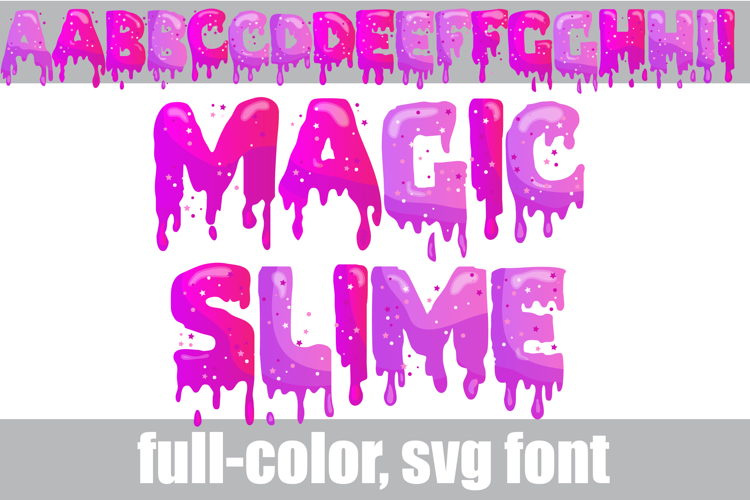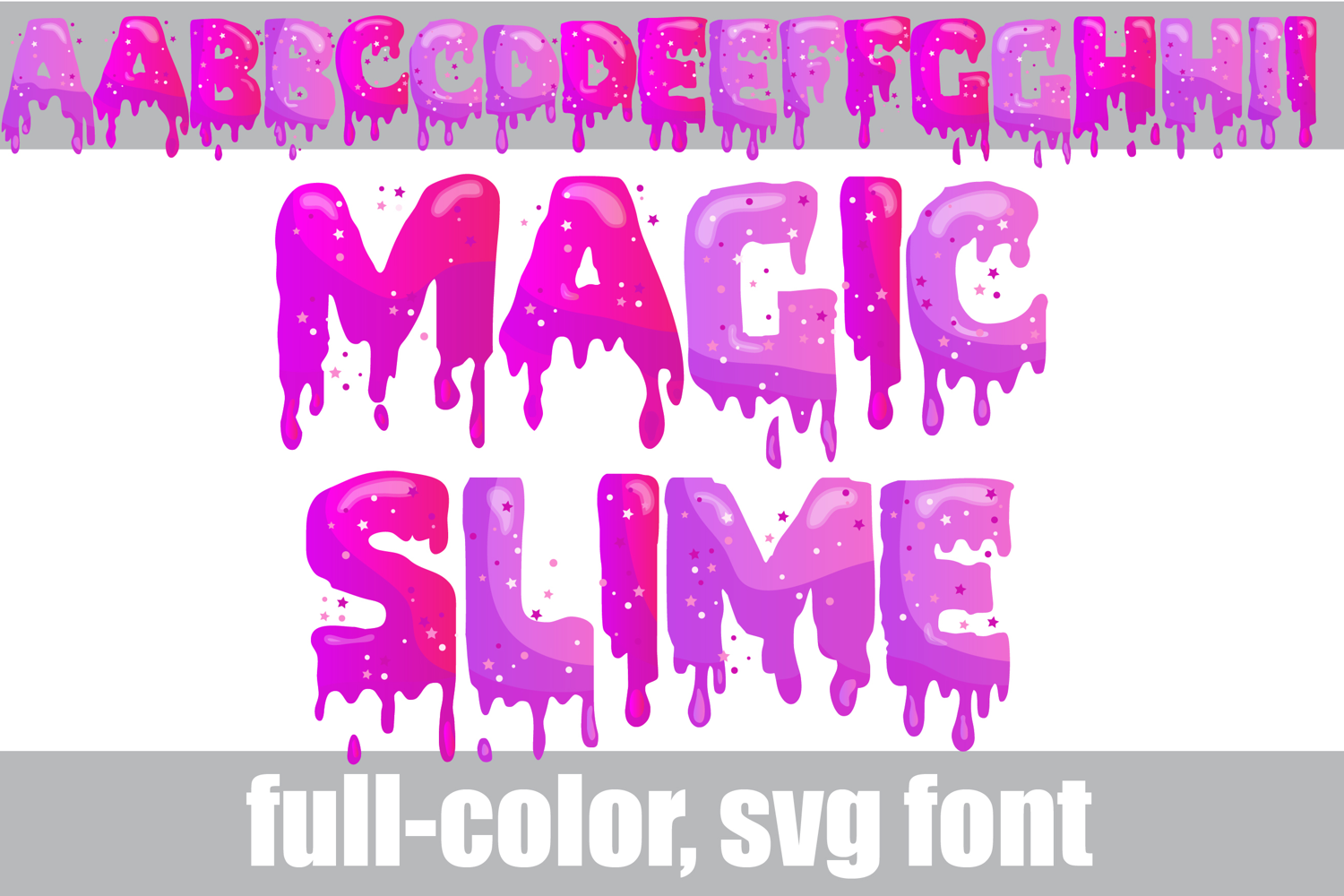
Magic Slime Color Font
This full-color font features letters that look like they are made from sparkly slime. There is an alt case of each letter with a different color combination.